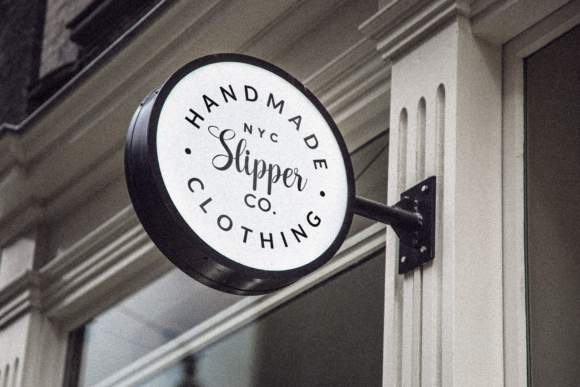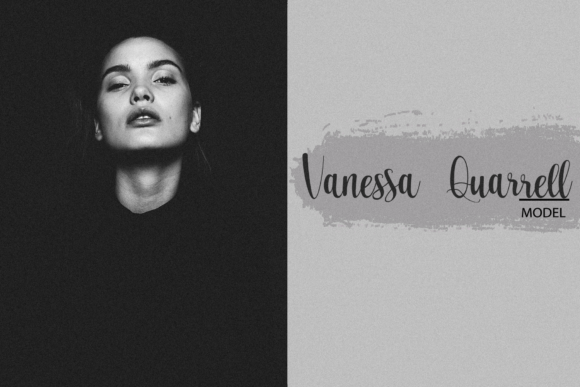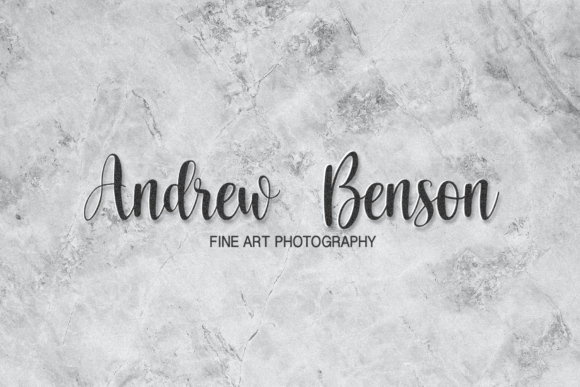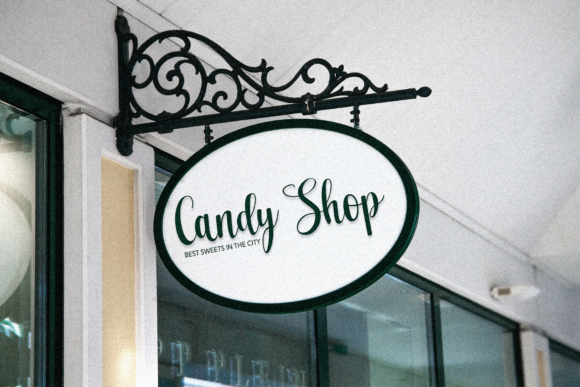
Introducing Calmness Font: The Epitome of Elegance and Serenity
In the realm of typography, few fonts manage to evoke a sense of tranquility and refinement as effectively as Calmness Font. This beautifully crafted, handwritten font has been making waves in the design community for its unique blend of delicacy, timelessness, and versatility. Whether you’re a designer, crafter, or simply someone who appreciates the art of fine typography, Calmness Font is sure to captivate you with its understated elegance.
The Distinctive Characteristics of Calmness Font
Calmness Font stands out from the crowd with its incredibly distinct and delicate features. Each letter is carefully crafted to exude a sense of serenity and poise, making it the perfect choice for designs that require a touch of sophistication. The font’s timeless quality ensures that it remains relevant and stylish, regardless of current trends or seasons.
One of the key benefits of Calmness Font is its incredible versatility. Its handwritten charm makes it suitable for a wide range of design applications, including:
- Wedding invitations: Add a touch of romance and elegance to your wedding stationery with Calmness Font.
- Thank you cards: Express your gratitude in style with this beautiful, handwritten font.
- Quotes: Give your inspirational quotes a touch of sophistication with Calmness Font.
- Greeting cards: Create stunning greeting cards for any occasion with this versatile font.
- Logos: Use Calmness Font to create a unique and memorable logo for your business or brand.
- Business cards: Elevate your business cards with a touch of elegance and refinement.
Why Designers and Crafters Love Calmness Font
Designers and crafters alike are drawn to Calmness Font for its unique combination of style, versatility, and ease of use. Here are just a few reasons why:
- Ease of use: Calmness Font is incredibly easy to use, even for those who are new to design or typography.
- Customization: The font’s delicate features make it easy to customize and pair with other fonts or design elements.
- Timeless appeal: Calmness Font’s timeless quality ensures that your designs will remain stylish and relevant for years to come.
Tips for Getting the Most Out of Calmness Font
To truly get the most out of Calmness Font, here are a few tips to keep in mind:
- Pair with complementary fonts: Experiment with pairing Calmness Font with other fonts or design elements to create a unique and visually appealing design.
- Use for headlines and body text: Calmness Font is suitable for both headlines and body text, making it a versatile addition to any design project.
- Experiment with colors and textures: Don’t be afraid to experiment with different colors and textures to add depth and interest to your designs.
In conclusion, Calmness Font is a truly unique and exceptional handwritten font that is sure to captivate designers and crafters alike. Its delicate features, timeless appeal, and versatility make it the perfect choice for a wide range of design applications. Whether you’re looking to add a touch of elegance to your wedding stationery or create a stunning logo for your business, Calmness Font is sure to exceed your expectations.